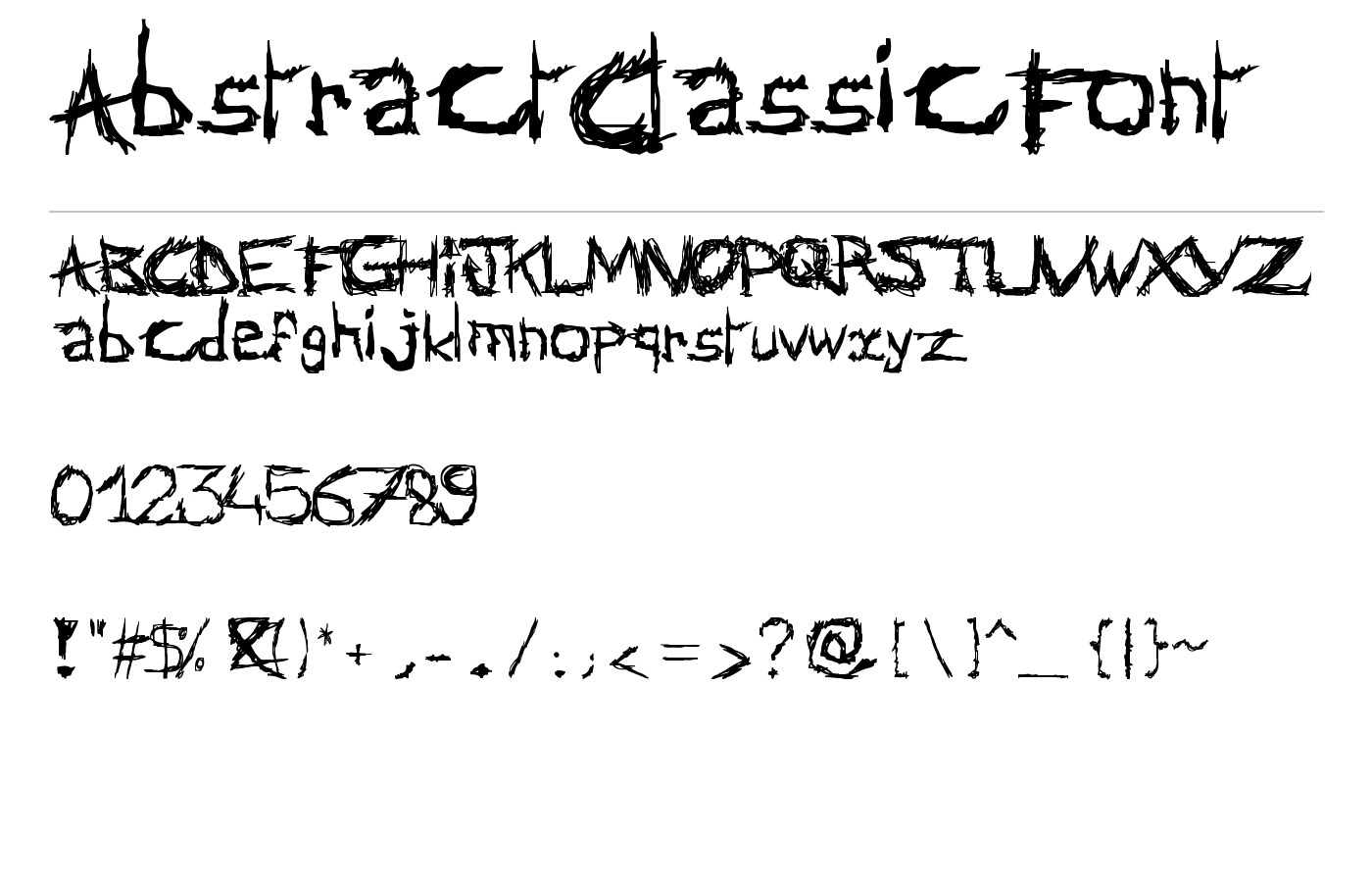
AbstractClassicFont is a highly expressive, distressed sans serif with irregular, rough strokes that give it a chaotic and edgy feel. Its jagged, uneven letterforms create a dynamic, hand-drawn look that works well for artistic, alternative, or rebellious branding and designs seeking a raw, unconventional personality. This font is best suited for striking headlines, posters, and creative projects where a bold, grungy impact is desired.
AbstractClassicFont
About AbstractClassicFont
| Font family | AbstractClassicFont |
| Designer | High-Logic - Erwin Denissen |